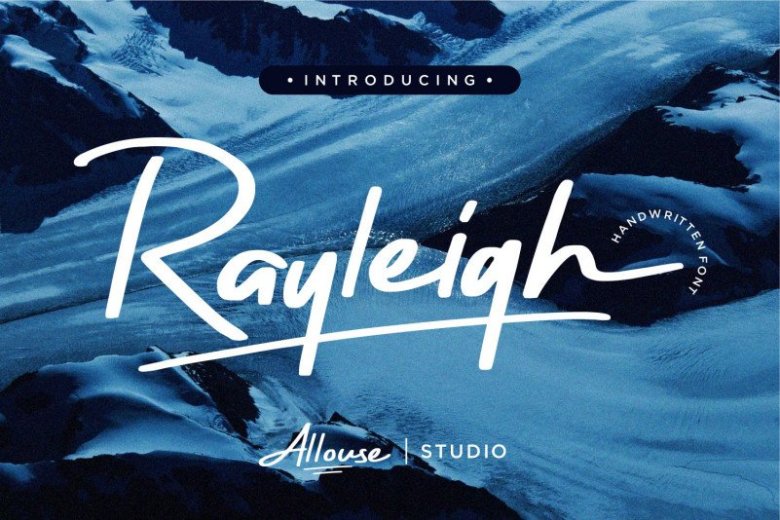
Rayleigh Brush Font
Rayleigh Brush Font is perfect for product packaging, branding project, megazine, social media, wedding, or just used to express words above the background.